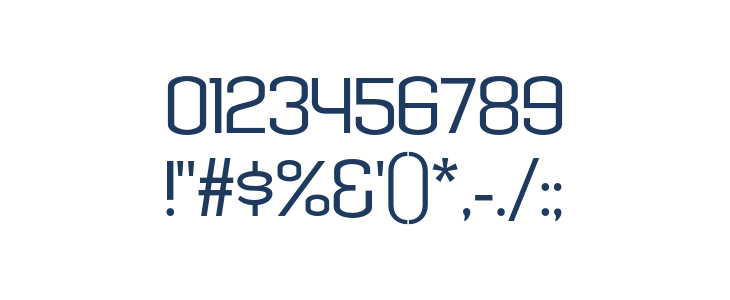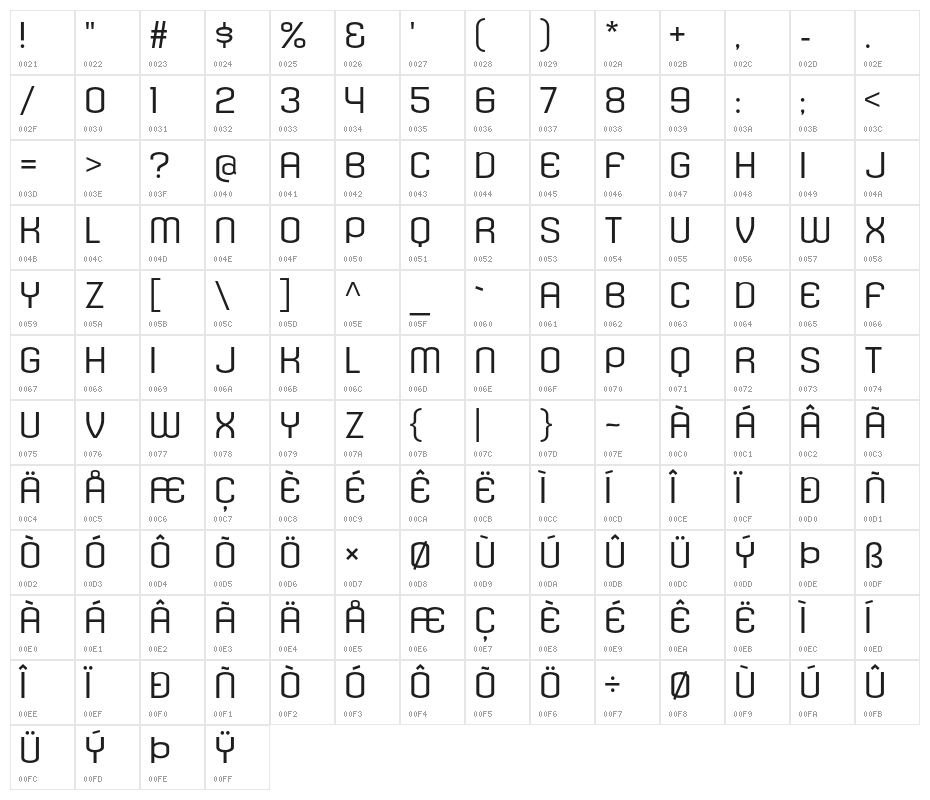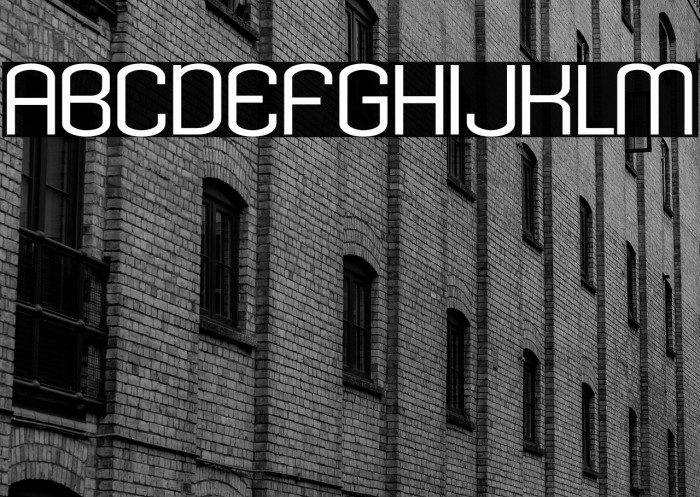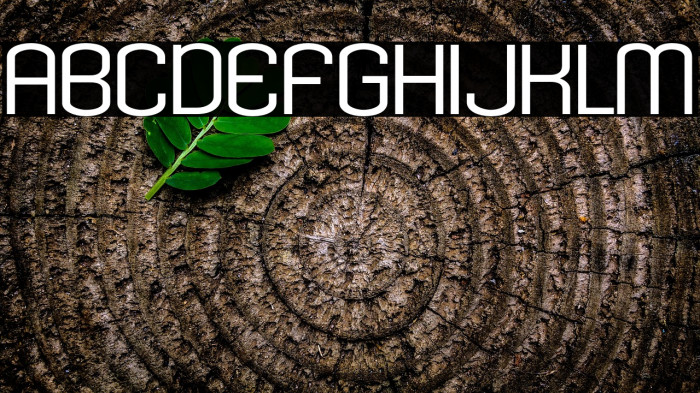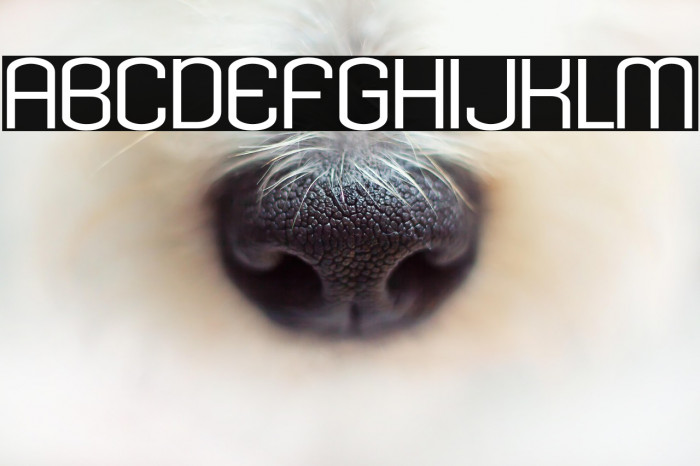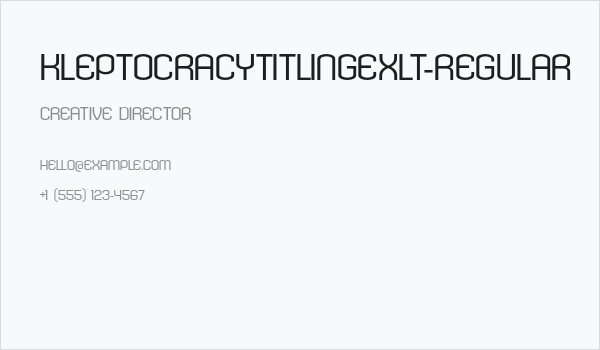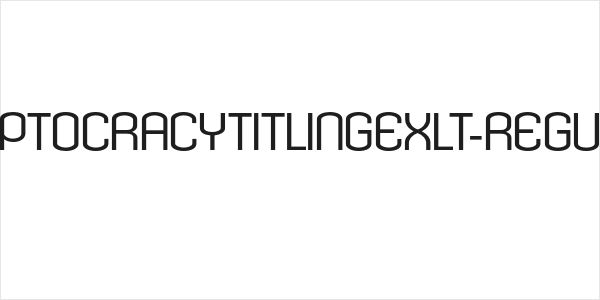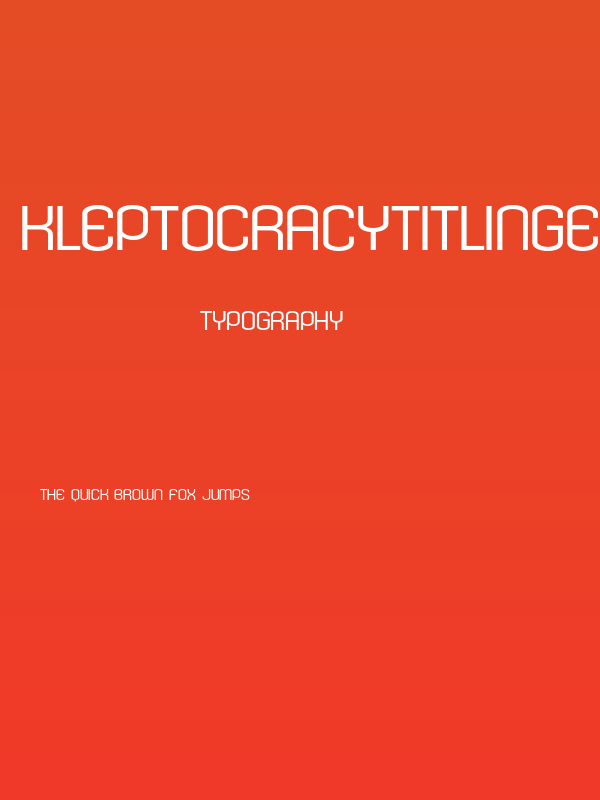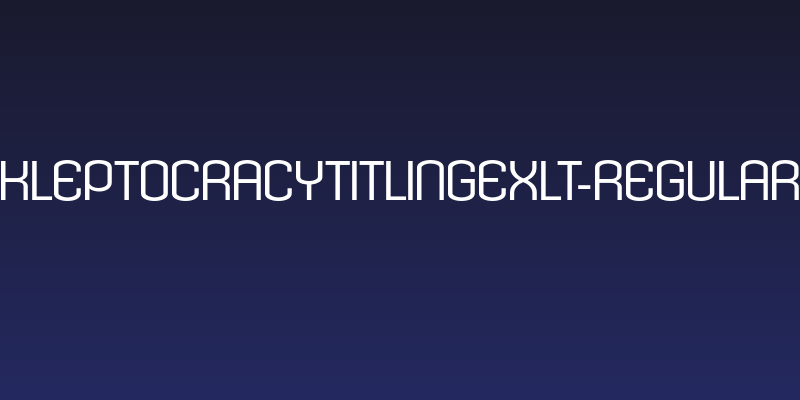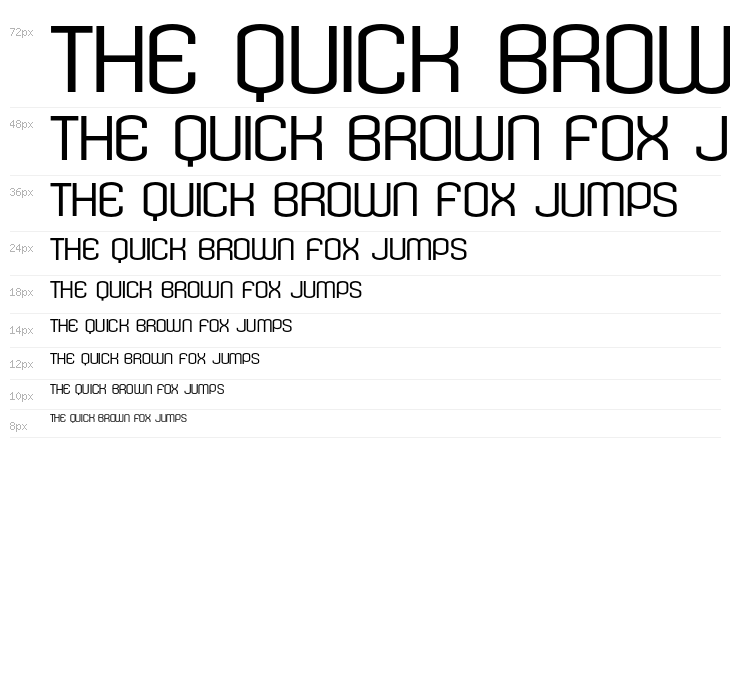
KleptocracyTitlingExLt-Regular Font
KleptocracyTitlingExLt-Regular Description
This font features a modern and geometric design with clean, straight lines and rounded edges, giving it a sleek and contemporary appearance. The uppercase letters are uniform in height, while the lowercase letters maintain a consistent style, enhancing readability. The numerals are distinct and align well with the overall aesthetic, making them suitable for various applications. Special characters are designed with the same attention to detail, ensuring they complement the alphabetic characters seamlessly. The font's overall look is both professional and stylish, making it versatile for different design needs.
| Use Case | Headlines, Logos, Digital Media |
| Proposed Projects | Ideal for branding, advertising, digital media, and editorial design projects. |